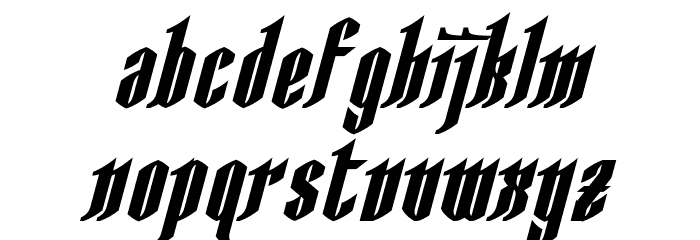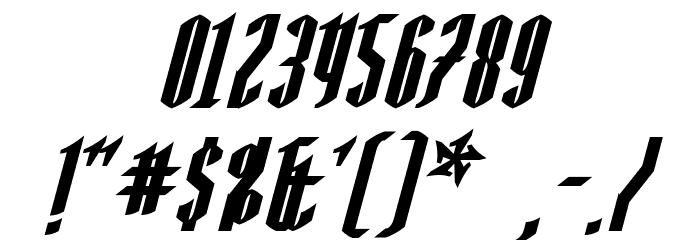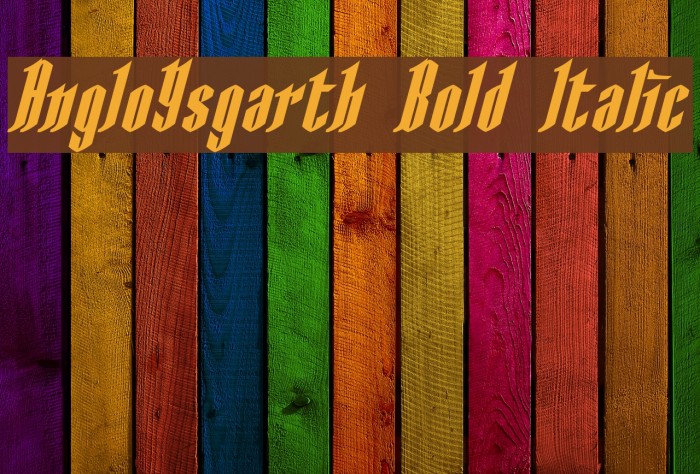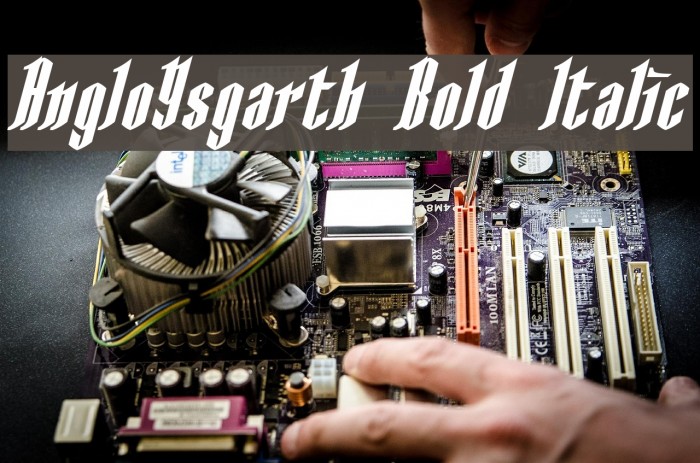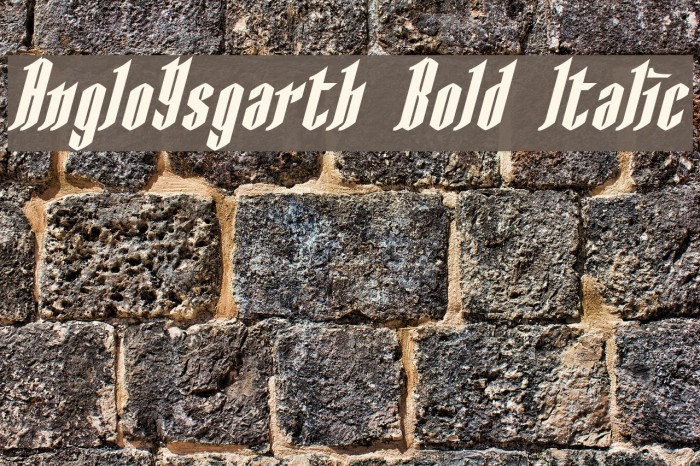
AngloYsgarth Bold Italic Font
This font exhibits a bold and italicized style with a strong, angular presence. The characters are sharply defined, featuring a distinct slant that adds dynamism and movement. The uppercase letters are tall and commanding, while the lowercase letters maintain a consistent flow, complementing the overall aesthetic. The numbers are equally bold, ensuring readability and impact. Special characters are designed with the same angular flair, making them stand out. This font's unique style is reminiscent of Gothic or Blackletter influences, yet it maintains a modern edge.
A bold, italicized font with angular, dynamic characters and a modern Gothic flair.
- Font: AngloYsgarth Bold Italic
- Weight: Bold Italic
- Proposed Projects: Ideal for projects that require a dramatic and impactful typeface, such as posters, logos, branding materials, and headlines.
- Category: Blackletter
- Contrast: High